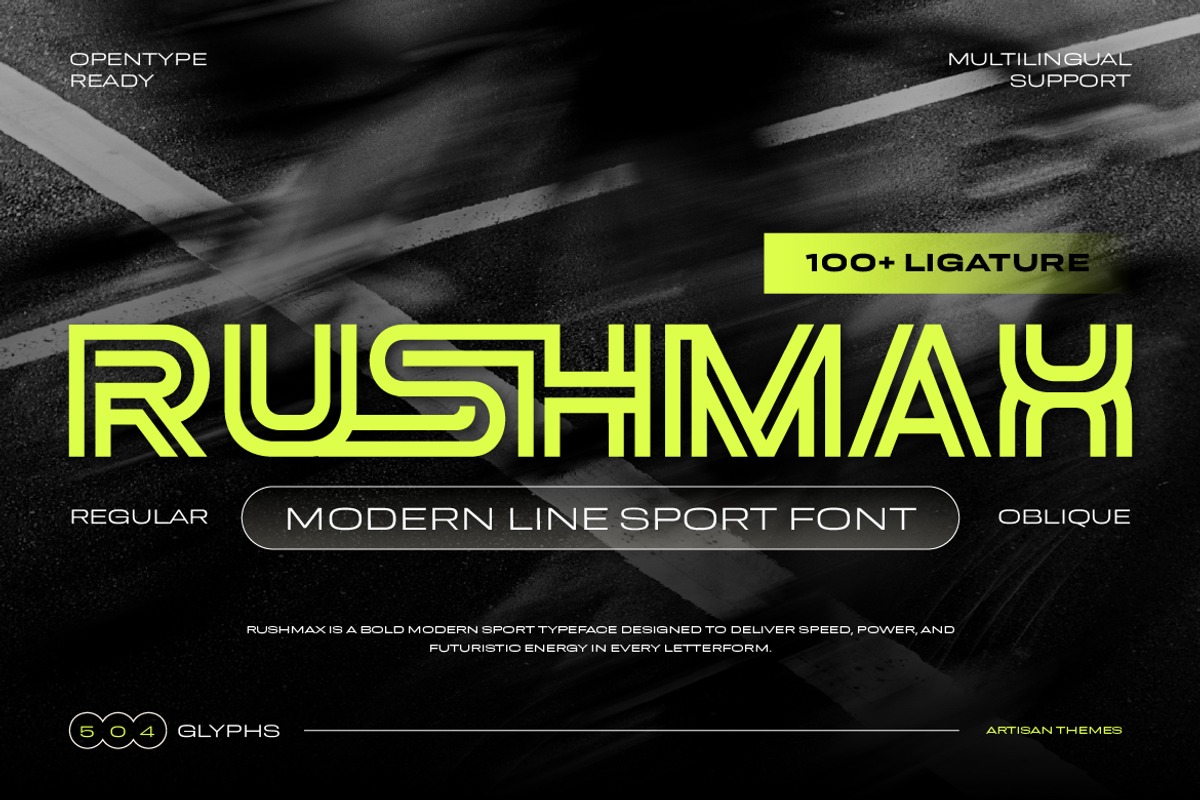
Rushmax Font
Rushmax Font is a versatile font designed to adapt beautifully across different design styles, offering dependable readability and balance. Rushmax is a bold modern sport font built to capture speed, power, and futuristic energy in every letter. Designed with sharp lines, dynamic curves, and a high-performance aesthetic, this typeface is perfect for projects that demand a strong and aggressive visual impact.
Inspired by athletic performance, Rushmax delivers a sleek and cutting-edge look that feels fast, confident, and unstoppable.
Whether you’re creating branding for sportswear, racing events, fitness campaigns, or futuristic tech visuals, this font brings a high-speed attitude to your design.